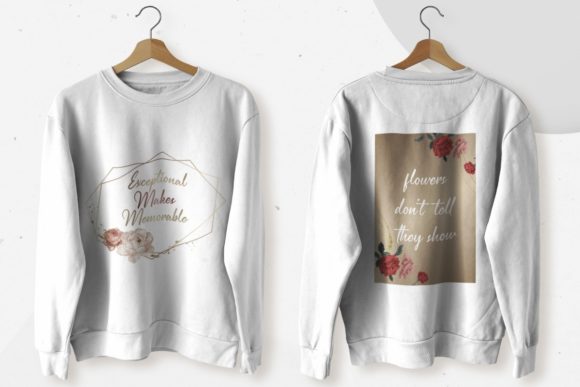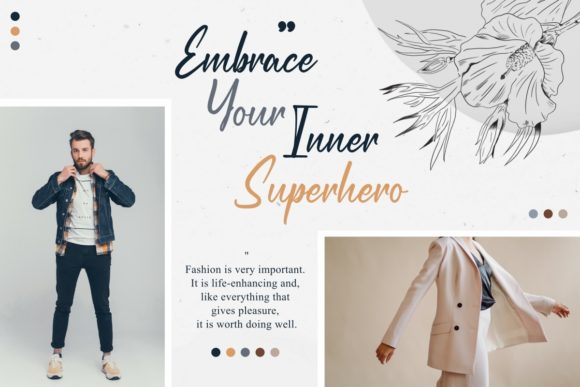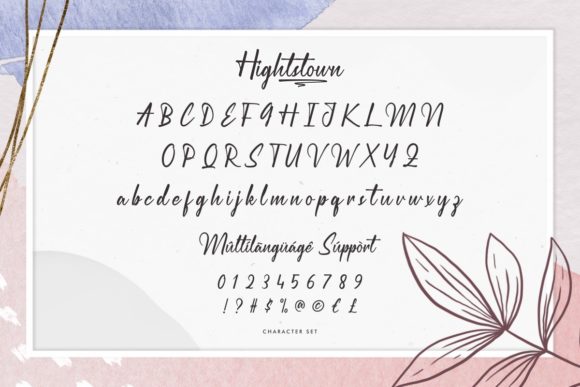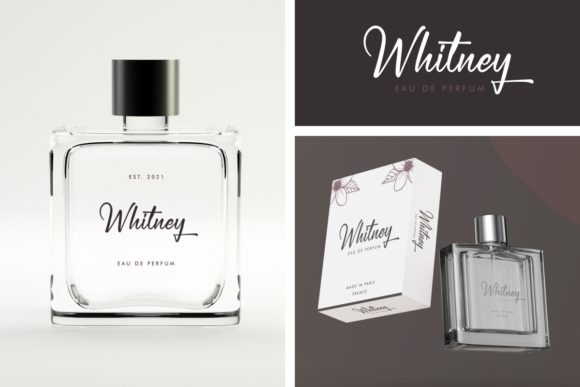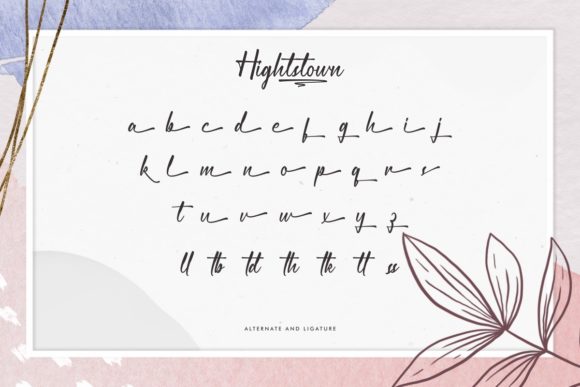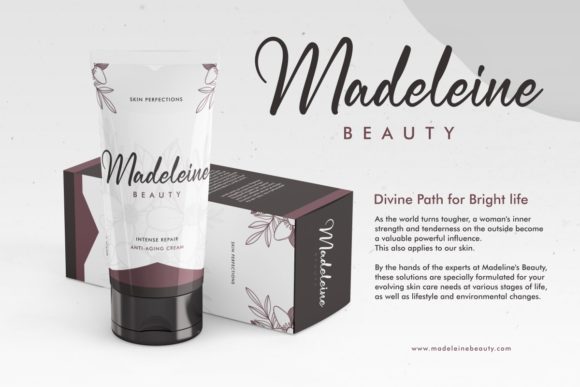
Hightstown Font
About Hightstown Font
Hightstown is a flowing handwritten font, described by an elegant touch, perfect for your favorite projects. This font is PUA encoded which means you can access all of the glyphs and swashes with ease!